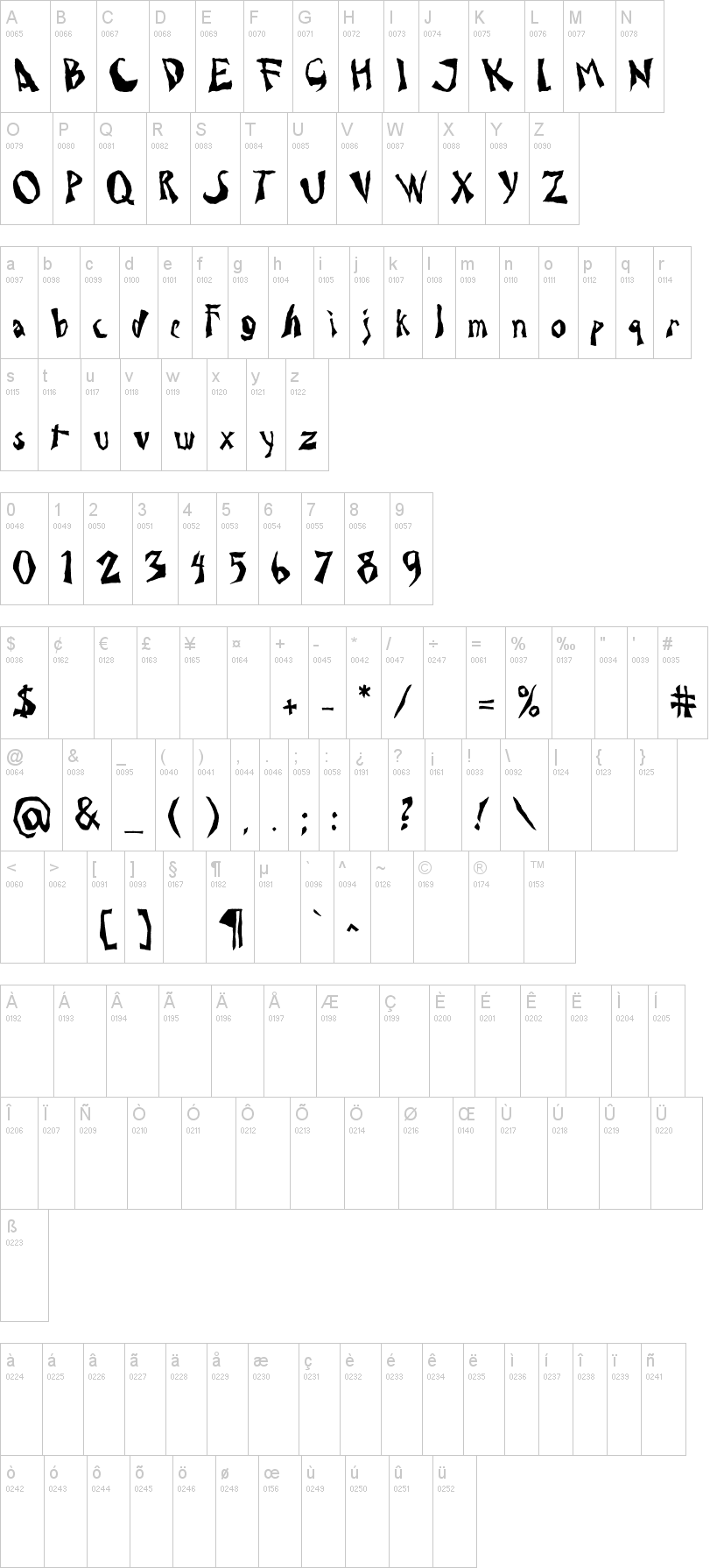
Note of the authorBased on the title cards of the 1920 silent horror film, THE CABINET OF DR. CALIGARI. Upon seeing the movie, the title cards really stood out to me as unique, and definitely added to the creepy atmosphere. To my great dismay, there was no font like it out there, so I took it upon myself to make my own.